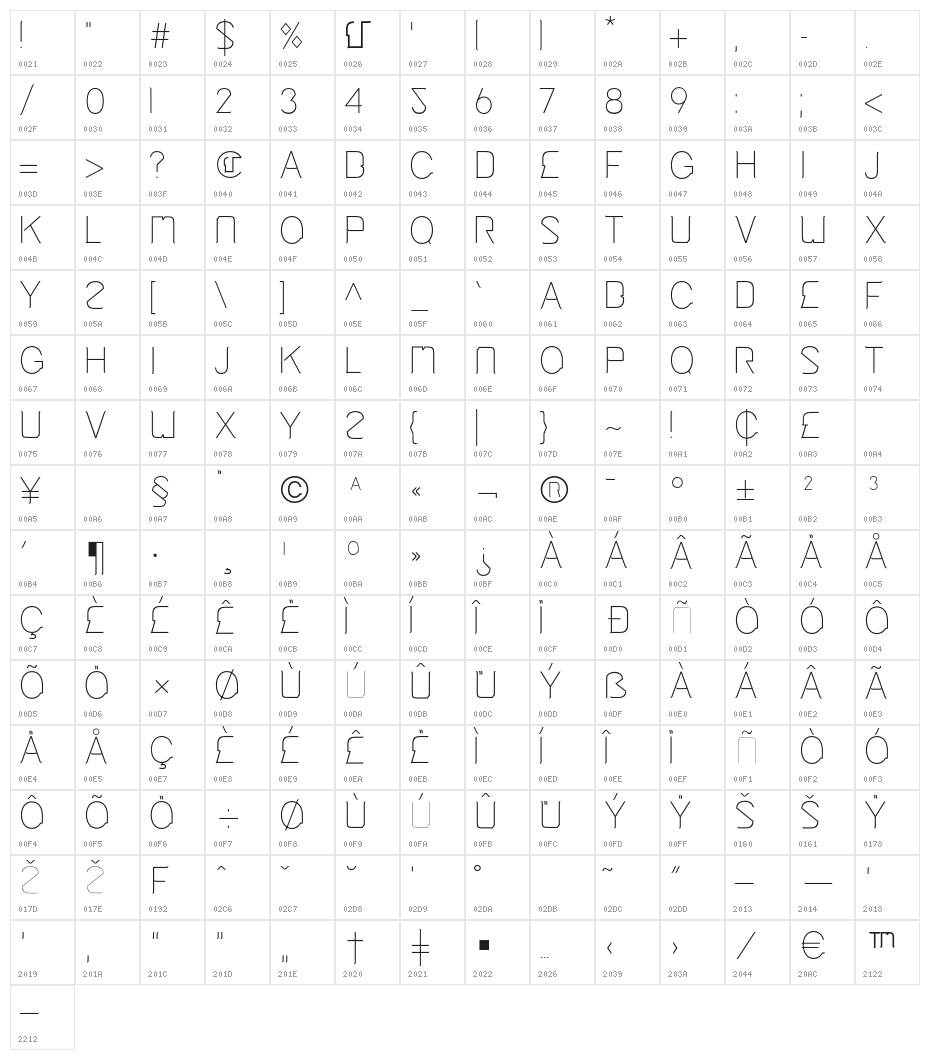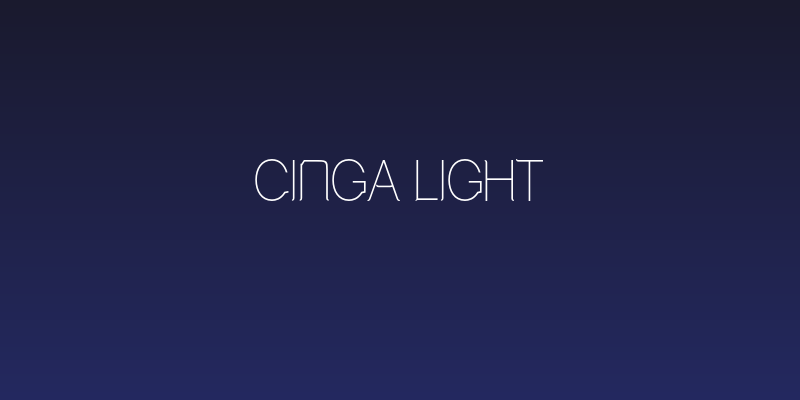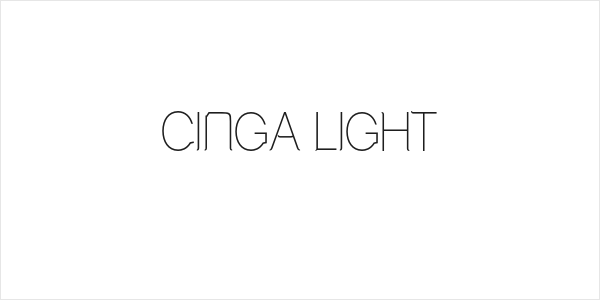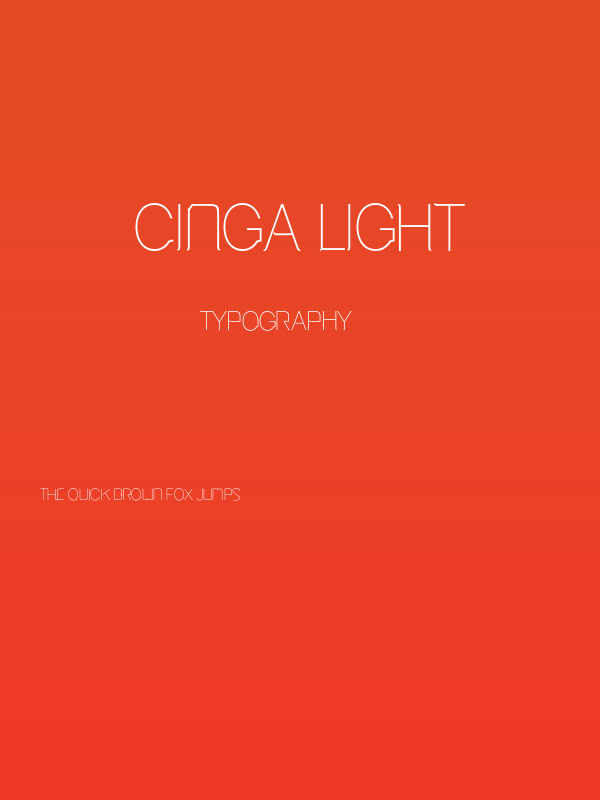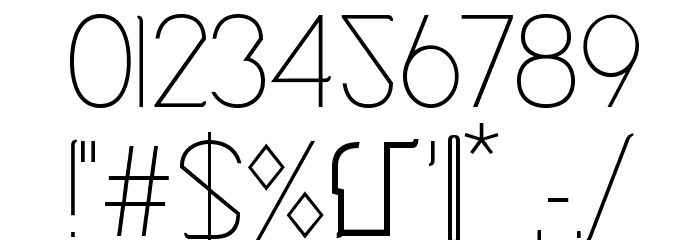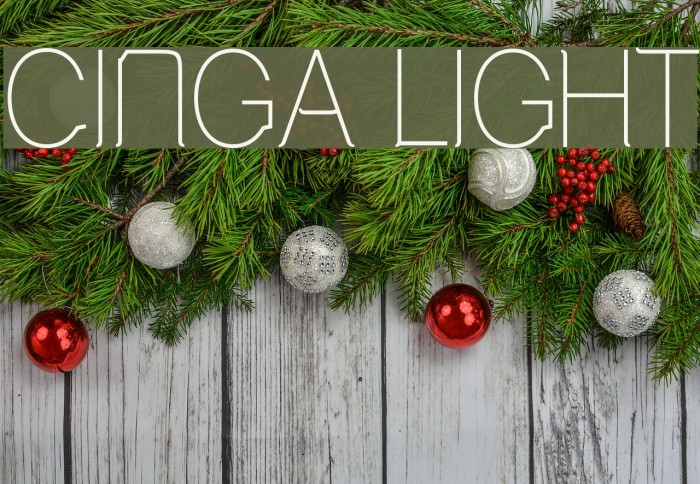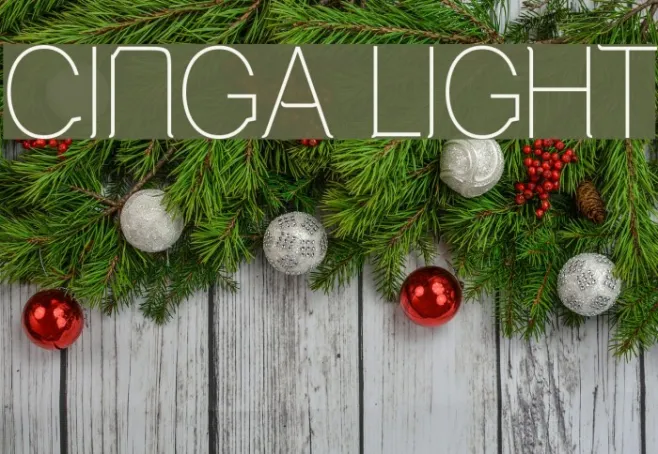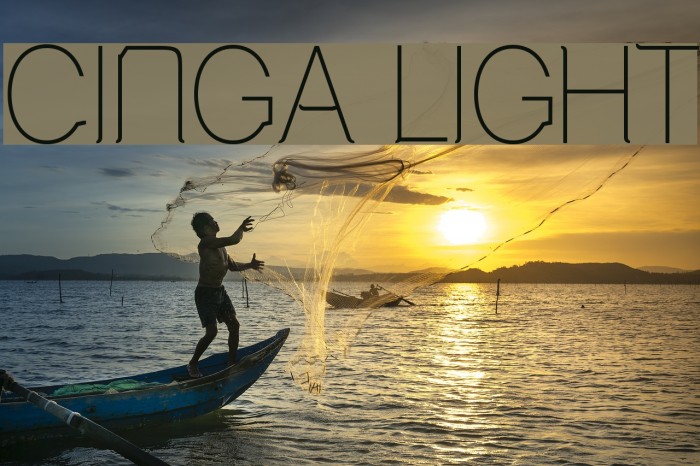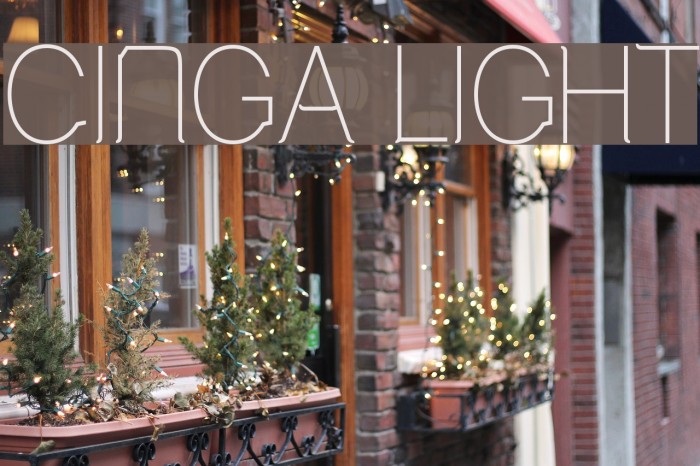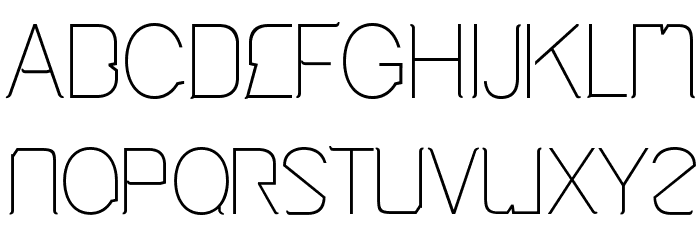
Cinga Light Font
Cinga Light Description
This font features a modern, geometric design with clean, straight lines and sharp angles. The characters are constructed with a consistent stroke width, giving it a uniform appearance. The uppercase and lowercase letters share similar structural elements, creating a cohesive look. The numerals and special characters maintain the same geometric style, ensuring visual harmony across all glyphs. Its minimalist aesthetic makes it suitable for contemporary design projects, where clarity and simplicity are desired. The font's unique style can add a distinctive touch to any creative work.